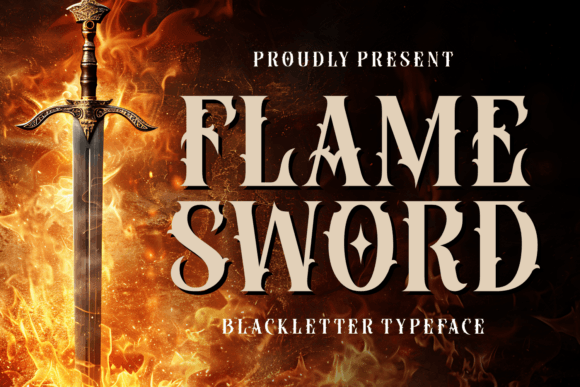
Unleashing the Power of Flame Sword Font
Have you ever been inspired by a fiery spark of creativity, only to have it fade away like a dying ember? I know I have. But what if I told you that there’s a font that can reignite that flame and keep it burning bright? Enter the Flame Sword Font, a bold and angular blackletter font that’s perfect for making a statement.
With its molten design and medieval strength, the Flame Sword Font is ideal for logos, fantasy themes, tattoos, or dramatic headlines that demand attention. For designers, this font is a valuable asset in their toolkit, offering a unique way to add depth and emotion to their work. Whether you’re looking to create a bold new logo or add some drama to your next project, the Flame Sword Font is sure to ignite your imagination.
Flame Sword Font Key Features
- Font Family: Flame Sword Font
- Character Count: 1200+ glyphs, including Latin, Cyrillic, and Greek alphabets, as well as various symbols and emojis
- Unique Characteristics: Flame Sword Font features a unique blend of modern and medieval elements, with intricate details and ornaments, making it perfect for fantasy and historical designs
Designer Review: Flame Sword Font
I recently had the chance to work with the Flame Sword Font, and I must say it’s a unique and intriguing typeface. ✨ One of the things that stood out to me was its versatility – it can be used for a wide range of designs, from fantasy novels to video game interfaces.
- The Flame Sword Font has a clear, bold aesthetic that makes it easy to read, even at small font sizes.
- The font’s irregularities add a touch of personality to designs, making it perfect for projects that need a bit of flair.
- The font’s wide range of weights and styles makes it easy to customize and tailor to specific design needs.
However, there are a few limitations to consider ⚠️: the font’s irregularities can sometimes make it difficult to read at very small font sizes, and it may not be the best choice for designs that require a high level of professionalism or sophistication.
Overall, I’d say the Flame Sword Font is a solid choice for designers who need a unique and attention-grabbing typeface. With its versatility and customization options, it’s a great addition to any design toolkit.
Tips for Getting the Most Out of Flame Sword Font
Use the Flame Sword font for fantasy or medieval-themed designs. It’s perfect for creating a dramatic or heroic effect. Experiment with different font sizes and colors to create a unique look. You can also pair the font with other fonts to create a dynamic effect.
The Flame Sword font is commonly used for:
- Fantasy or medieval-themed designs
- Dramatic or heroic effects
- Video game or movie title designs
- Comic book or graphic novel designs